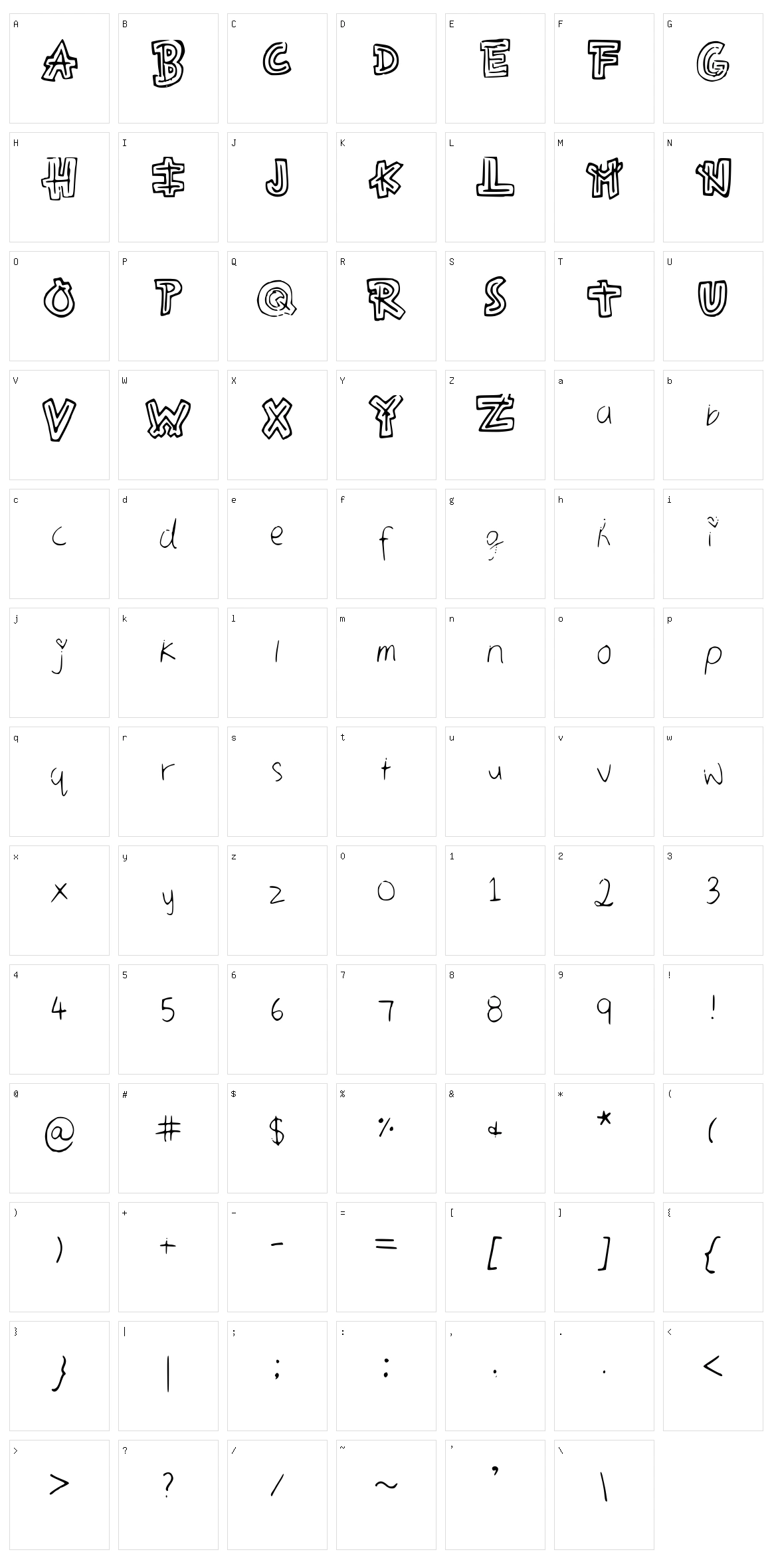
The free font Aztecways is carefully designed by bbethh.lol, showcasing a thoughtful balance of creativity and usability and falls under the Cartoon font style. When you download the ZIP file, it contains only 25 KB of font files, making it lightweight and quick to download. Please review the license details below to understand permitted usage and distribution rights. If license information is not available, we recommend using this font for personal projects only or contacting the author directly for commercial usage permissions.